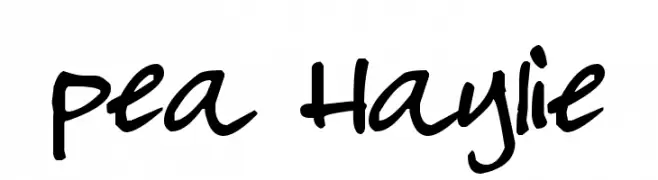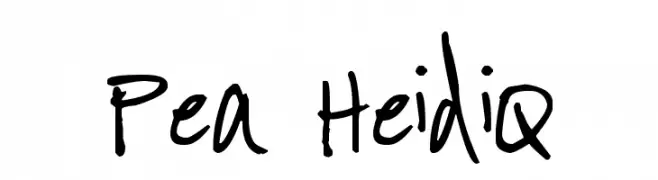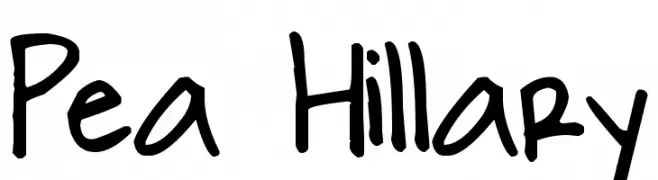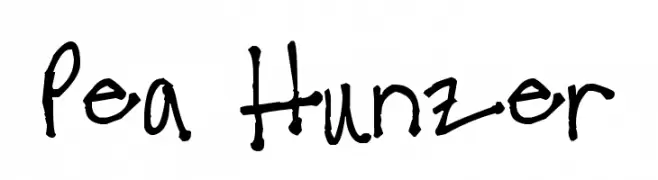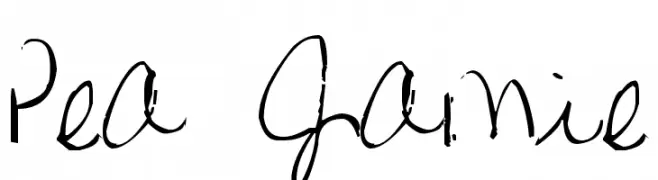
A playful, casual handwritten font with a lively and informal style.
A playful, casual handwritten font with bold, expressive strokes.
A playful, casual handwritten font with a lively and informal style.
A playful, casual handwritten font with dynamic strokes and unique character designs.
A playful, handwritten font with bold strokes and a casual style.
A playful, handwritten font with bold, irregular strokes and a friendly, casual vibe.
A playful handwritten font with bold, irregular strokes and a whimsical style.
A casual, playful handwritten font with loose, flowing strokes.
A playful, casual handwritten font with irregular strokes and a natural flow.